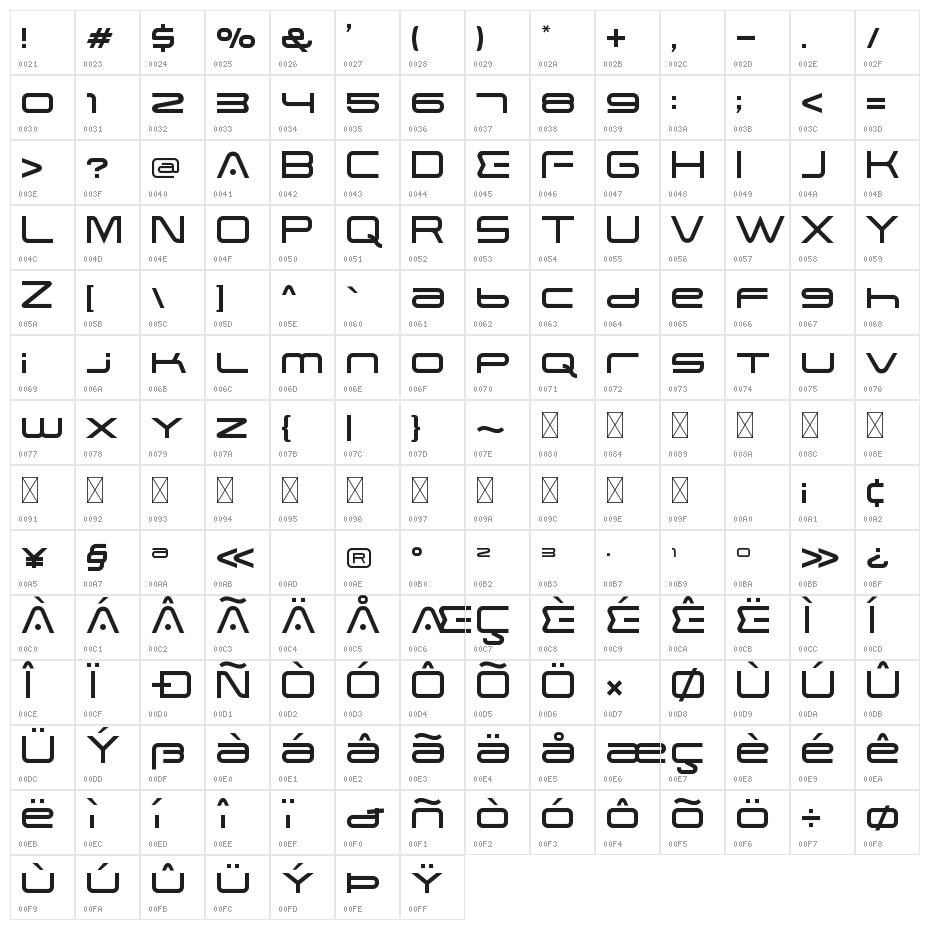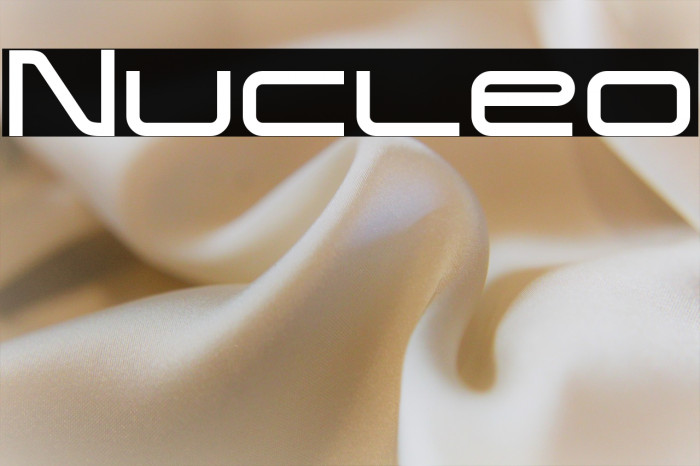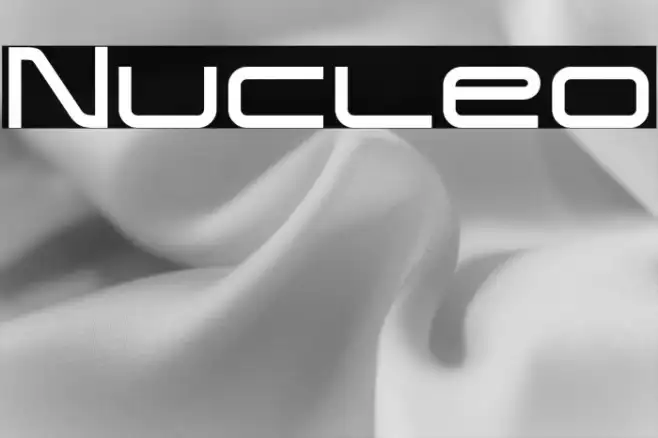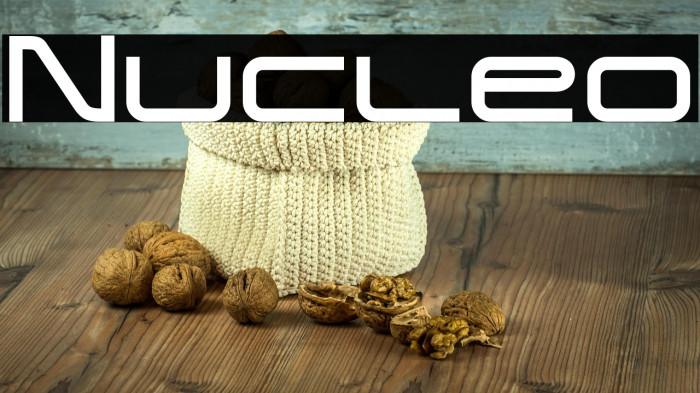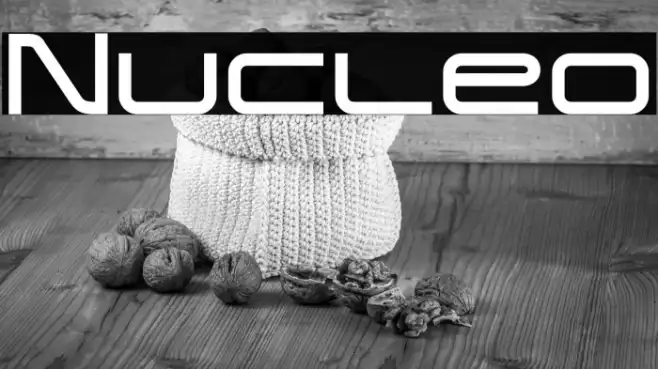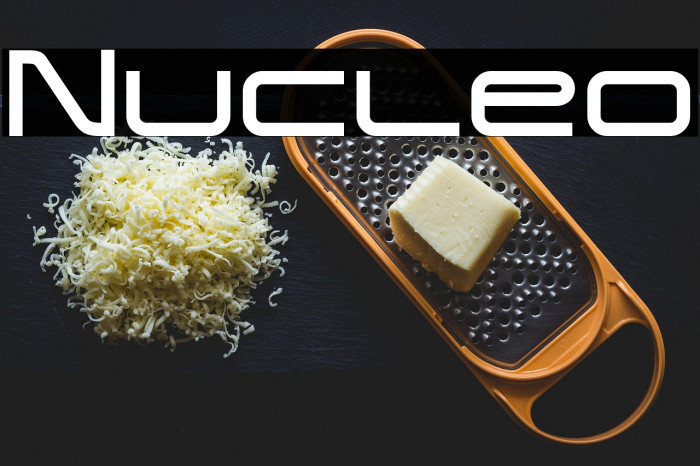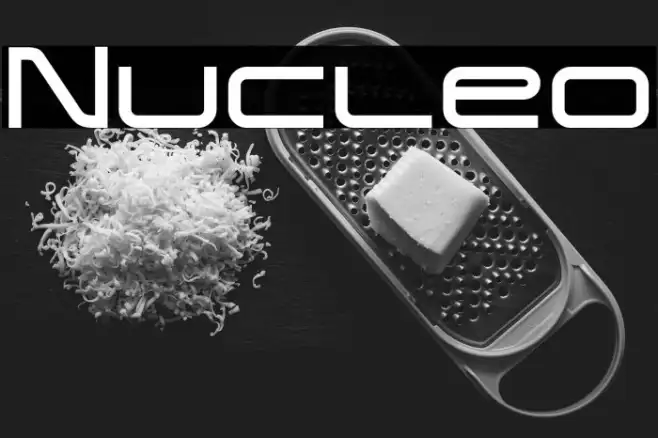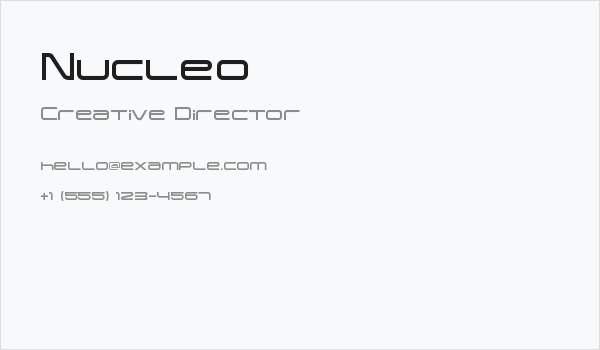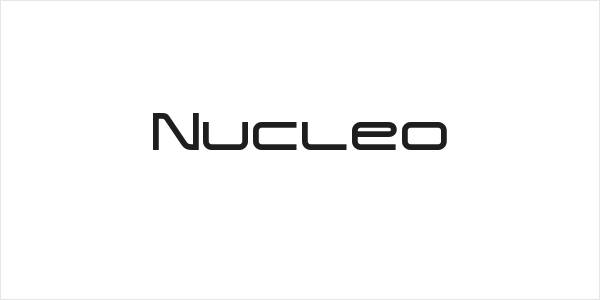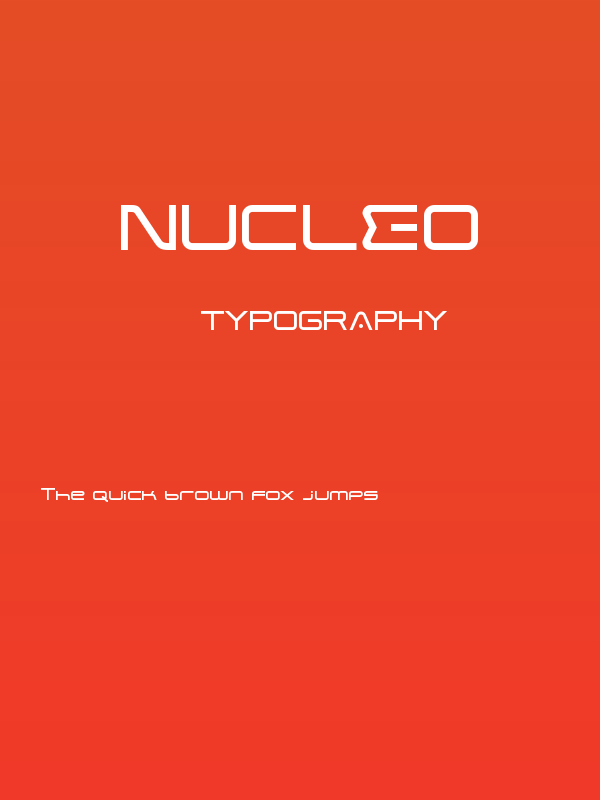
Nucleo Font
Nucleo Description
This font features a futuristic and geometric design, characterized by its clean and angular lines. The uppercase letters exhibit a unique blend of sharp edges and rounded corners, creating a modern and tech-inspired aesthetic. The lowercase letters maintain a consistent style, with a slightly more rounded appearance, enhancing readability. The numerals are distinct and align well with the overall geometric theme. Special characters are designed to match the angular and sleek style, making them suitable for various digital applications. The font's uniform stroke width and balanced proportions contribute to its contemporary look.
| Proposed Projects | Ideal for technology branding, digital interfaces, video game design, and sci-fi themed projects. |